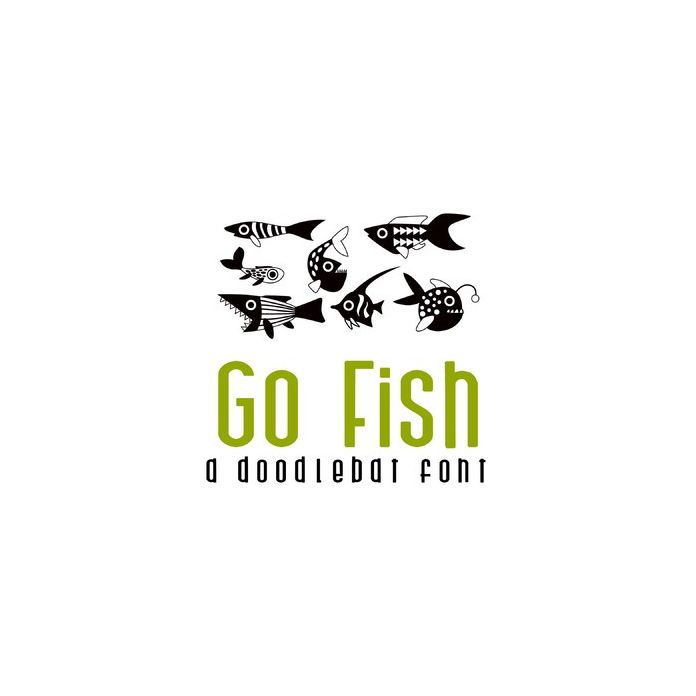
go fish doodlebat font
This fun doodlebat features 26 different fun graphic fish perfect for cards, crafts, gifts, decor, planner stickers, scrap book pages and more!